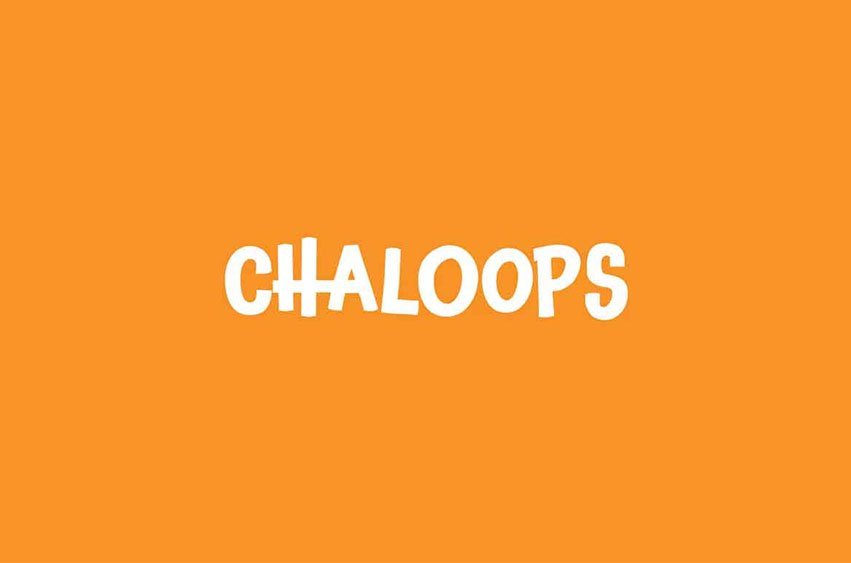
Chaloops Font
Chaloops Font Where the heck does a name like Chaloops come from? Do you know that Chihuahua that used to sell tacos? Chank’s mother-in-law calls him Chalupa. And the American pluralization for that must be Chaloops, because that’s her nickname for her two little spoiled fuzzball dogs. Another comic variation on Chank’s whimsical handwriting, Chaloops is bouncy, quirky, and light-hearted like the Chauncy fonts. But Chaloops has more squiggles and its stroke terminals are mostly square. Just like you. Chaloops the font comes with a few alternate characters to give your designs a more authentic hand-drawn look. Happy and playful like a pair of frolicsome puppies, this font is perfect for kids’ products and marketing. Advanced OpenType features include “Stylistic Set #1: Decaf” which gets you a calmer, more legible variation. The fonts in this family come in 3 weights in cross-platform OpenType format for both Mac & Windows.